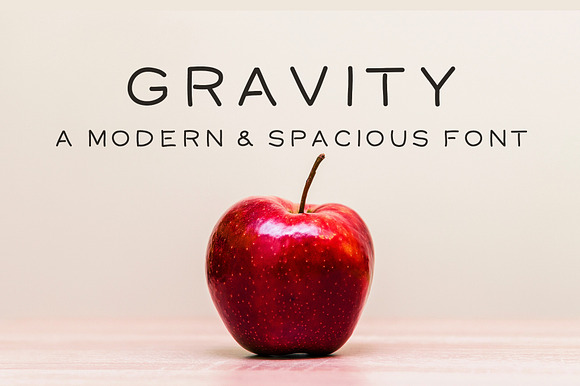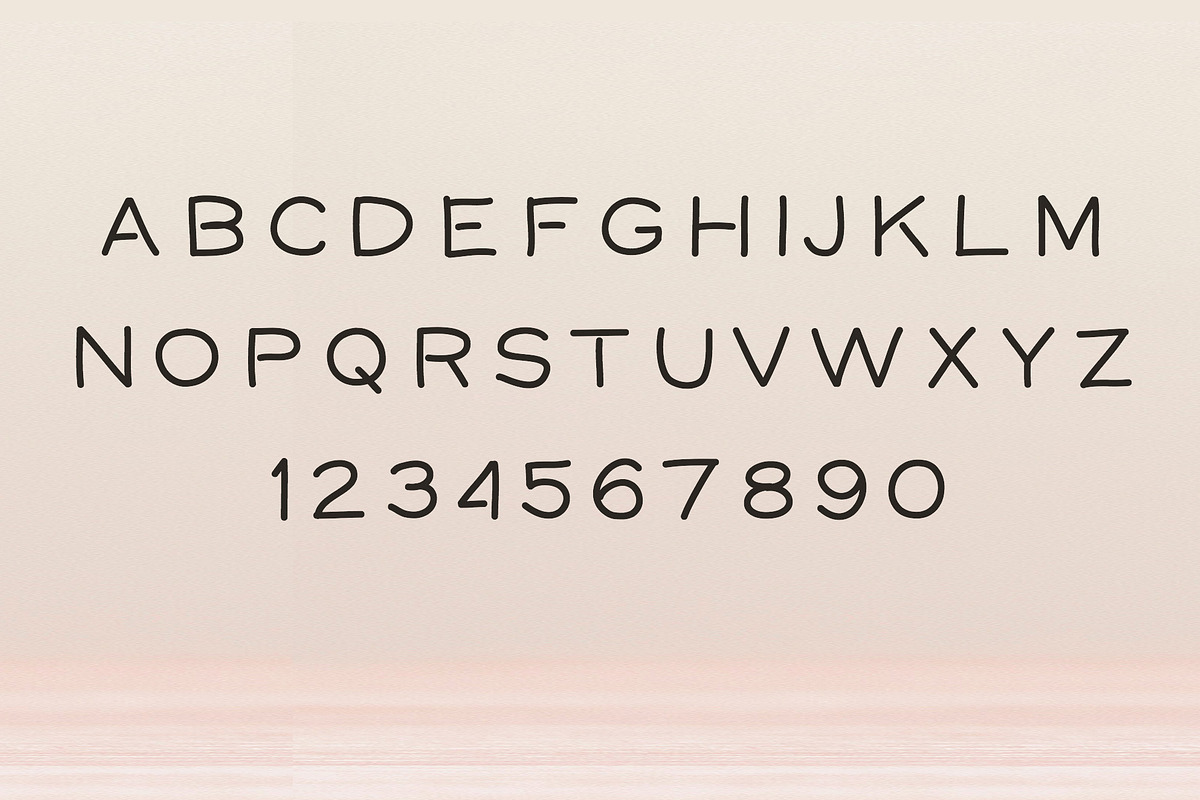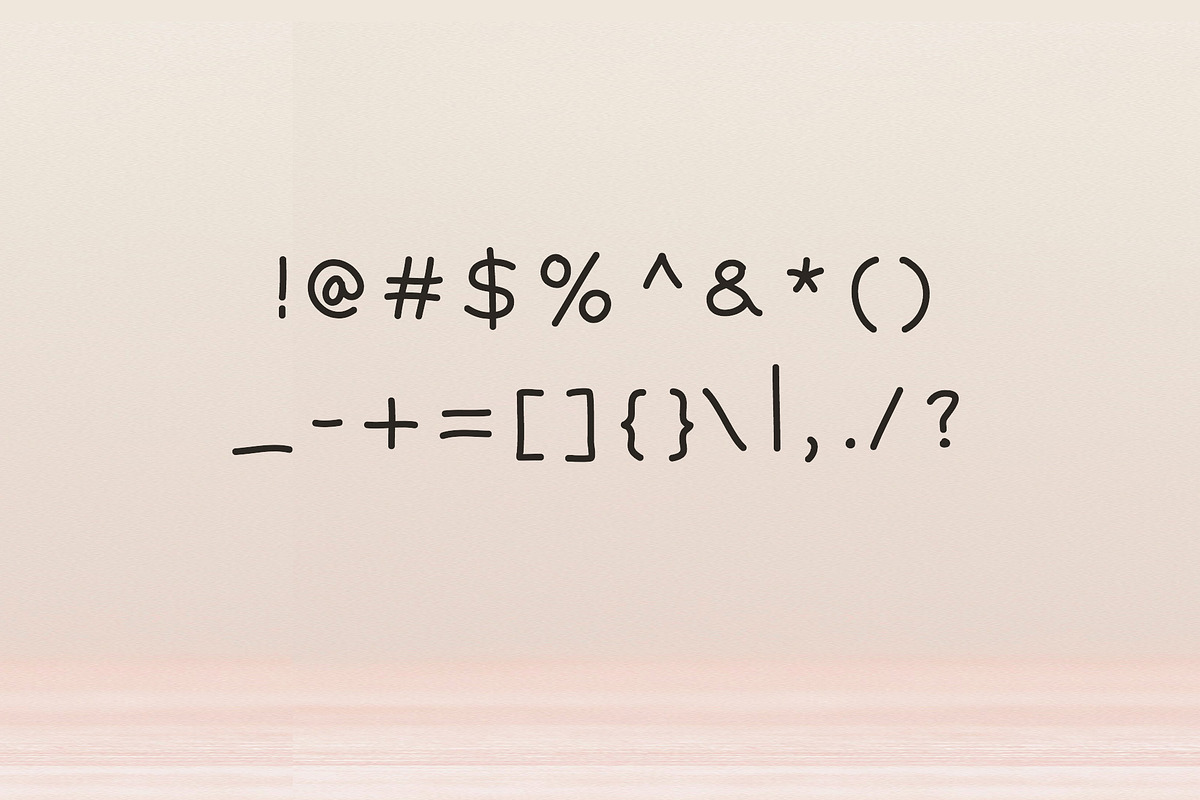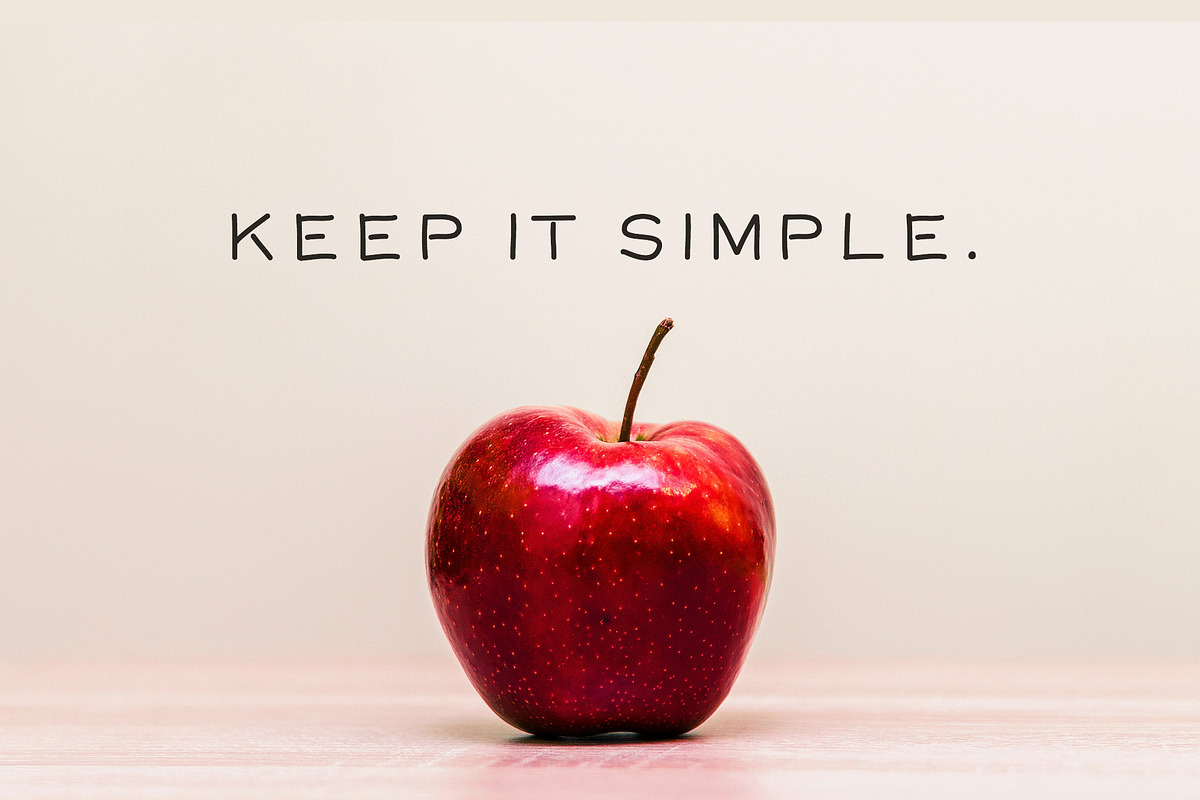
Gravity - A Modern and Spacious Font
Gravity is a clean and modern font with a generous amount of letter spacing to give it an open and airy feel. This font is an uppercase only font that does not include lowercase letters. It's great for headlines or simple, impactful phrases. Numbers and punctuation marks, as well as !@#$%^&() are included. Please use the previewer to test and try out this font.